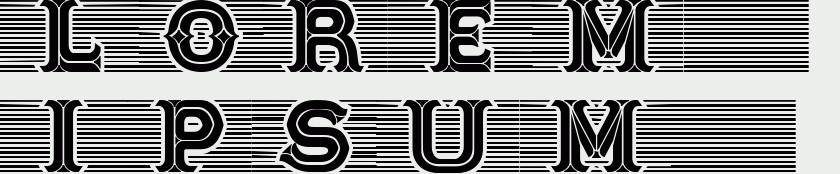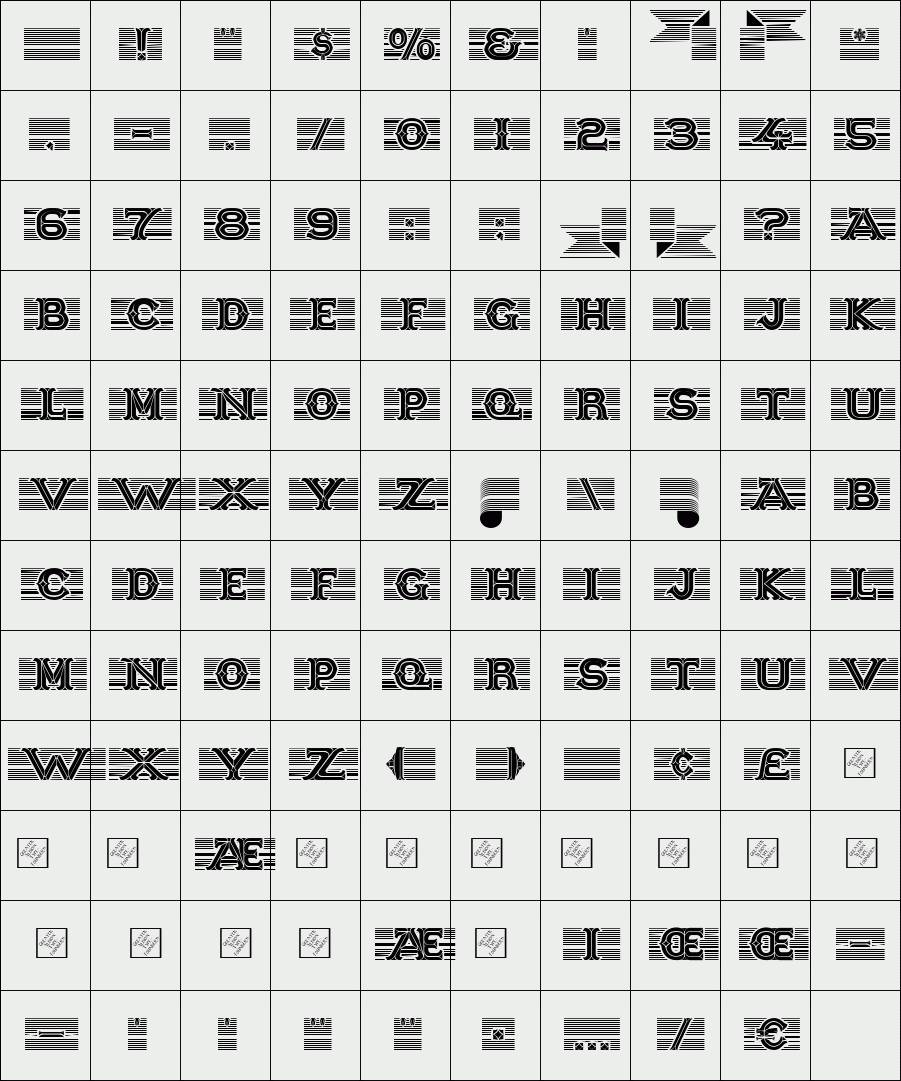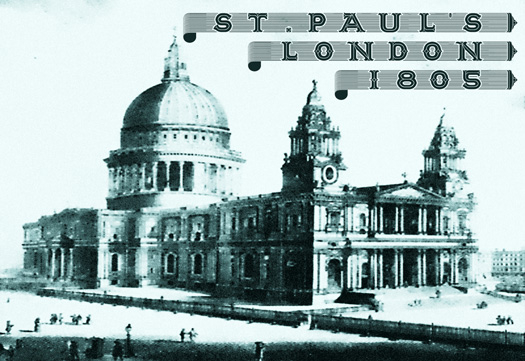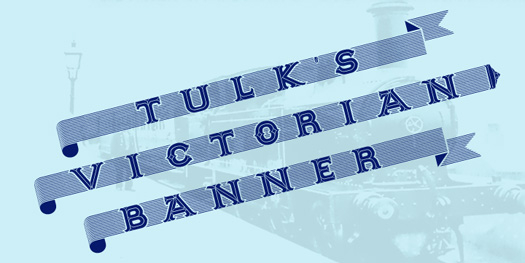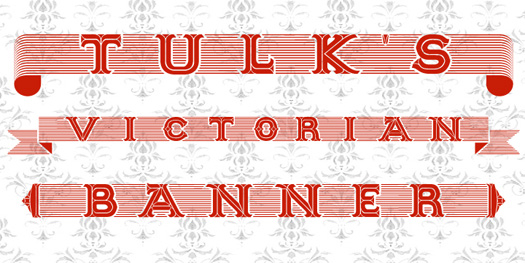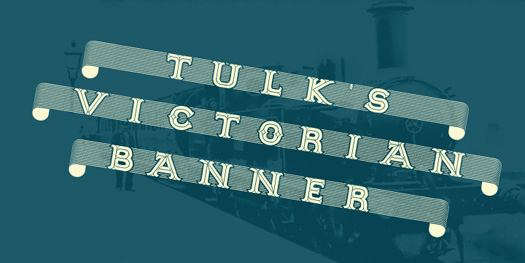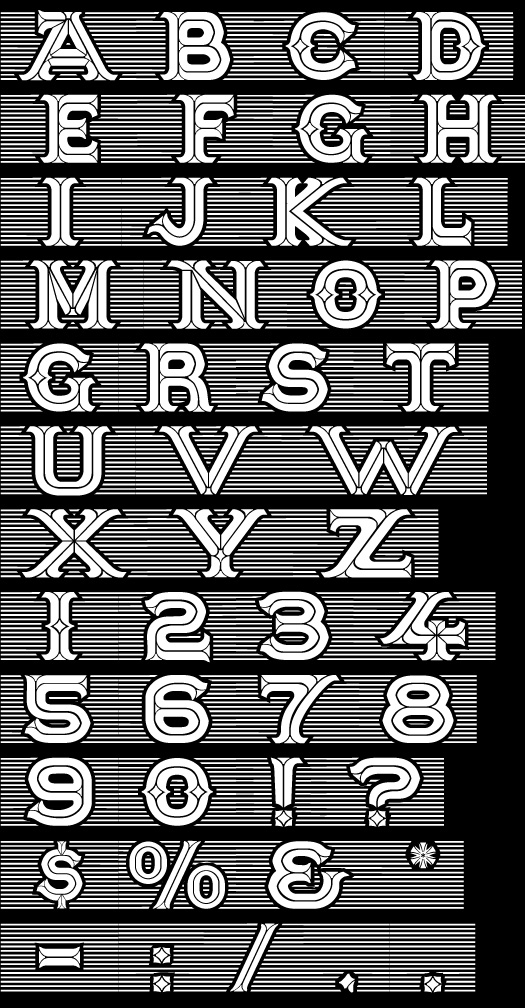
Tulk's
Tulk’s Victorian Banner revives the tradion of ‘Banner’ typefaces-lettering within their own lozenge or cartouche, that made such an appealing feature in many old type foundries catalogues.
Tulk’s Victorian Banner makes a wonderful feature of lettering in any piece of period inspired design. It compleiments our recent Fitzgerald space especially well, but can be used alongside any typeface of your choice where you want to bring a touch of period flamboyance.